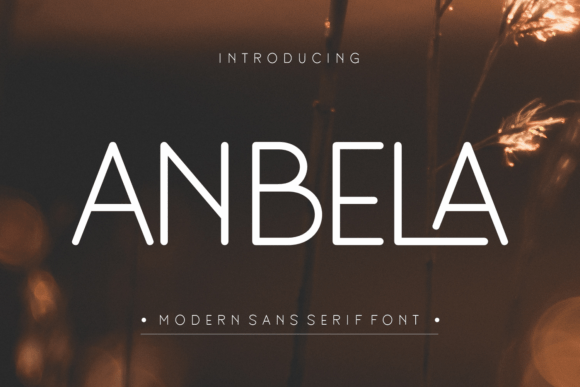
The Elusive Font: A Designer’s Love Affair with Anbela
I still remember the countless hours I spent searching for the perfect font for a client’s luxury brand project. The brief was simple: elegant, modern, and sophisticated. I scrolled through pages of font libraries, but nothing seemed quite right. That was until I stumbled upon Anbela – a sleek and minimalist modern sans serif font that radiates elegance and clarity. ✨
An Honest Review of Anbela
- ✨ Clean lines and rounded corners that exude sophistication
- ✅ Perfect for branding, high-end packaging, fashion lookbooks, and lifestyle content
- ✅ Fresh, contemporary aesthetic with a sophisticated edge
- ✅ Versatile and legible, making it suitable for both web and print designs
While Anbela is an exceptional font, there are a few minor quirks to be aware of: 🤔
- ⚠️ Limited availability of extended language support
- ⚠️ Some users may find the font too minimalist or lacking in personality
- Experiment with OpenType features, such as stylistic alternates and glyphs, to add visual interest
The Story Behind Anbela
Anbela was designed with the modern designer in mind. Its creator aimed to craft a font that would be both elegant and versatile, suitable for a wide range of design applications. Inspired by the clean lines and minimalist aesthetic of luxury brands, Anbela has quickly become a go-to font for designers seeking a sophisticated edge. 📚
Q: What makes Anbela suitable for high-end branding?
A: Anbela’s clean lines, rounded corners, and sophisticated aesthetic make it an excellent choice for high-end branding, exuding luxury and elegance. 💼
Q: Can I use Anbela for body text?
A: While Anbela is legible and versatile, its minimalist design may not be the best choice for lengthy body text. Consider using it for headlines, titles, or short paragraphs instead. 📄
Q: Is Anbela available in different weights?
A: Yes, Anbela comes in various weights, allowing you to experiment with different styles and contrasts in your design. 💪
Q: Can I use Anbela for digital interfaces?
A: Absolutely! Anbela’s clean design and legibility make it an excellent choice for digital interfaces, such as websites, mobile apps, and more. 📱